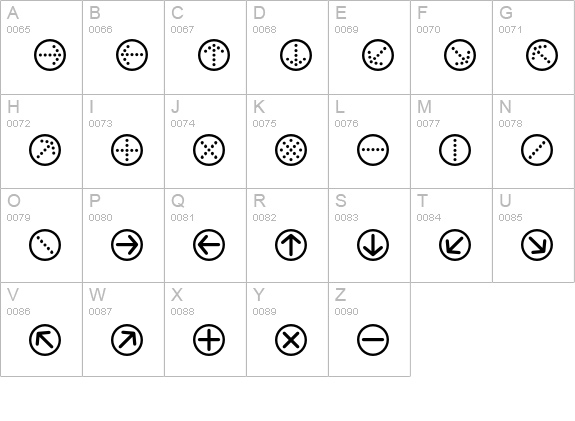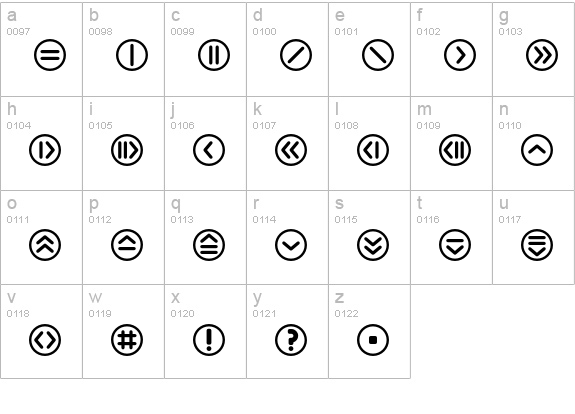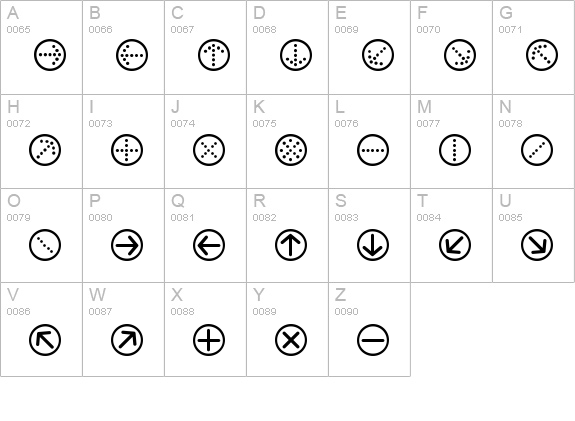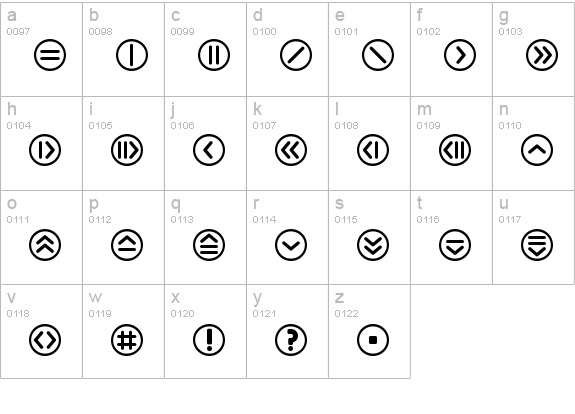
ButtonBonus-CirclePositive Font Details
ButtonBonus-CirclePositive font is a delightful and whimsical typeface that is sure to add a playful touch to any design project. With its rounded edges and cheerful appearance, this font is perfect for creating eye-catching headlines, logos, and more. The ButtonBonus-CirclePositive font features a unique circular design that exudes positivity and friendliness. Best of all, this font is available for free download at FontsMarket.com. Whether you're working on a personal project or a professional design, ButtonBonus-CirclePositive font is a versatile and fun choice that will surely make your creations stand out. Add a touch of charm and cheer to your designs with the ButtonBonus-CirclePositive font today!